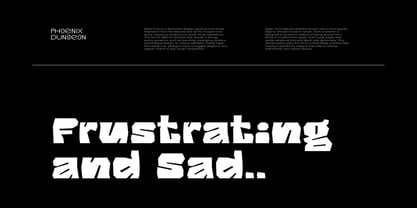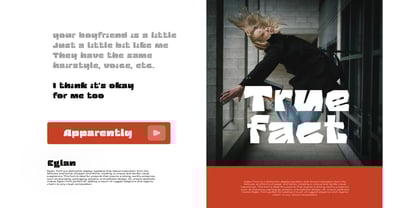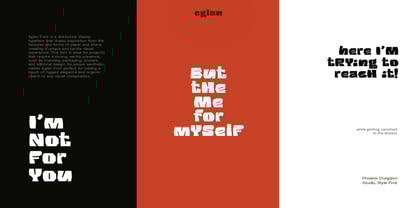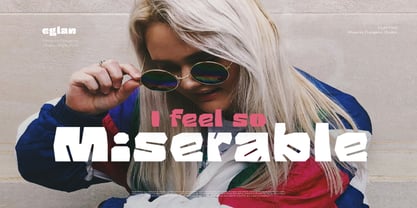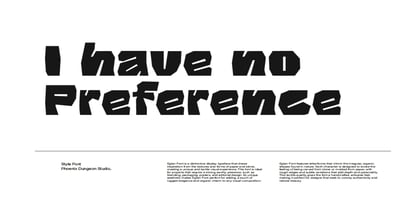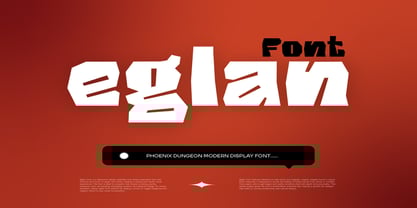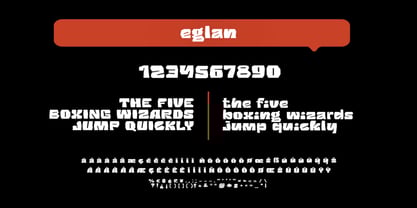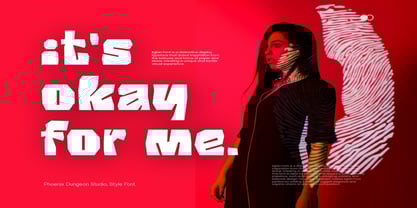
Eglan
by Phoenix Group
The Eglan Font Family was designed by Alif Naufal Muzakki and published by Phoenix Group. Eglan contains 1 styles. More about this family
Eglan Font is a distinctive display typeface that draws inspiration from the textures and forms of paper and stone, creating a unique and tactile visual experience. This font is ideal for projects that require a strong, earthy presence, such as branding, packaging, posters, and editorial design. Its unique aesthetic makes Eglan Font perfect for adding a touch of rugged elegance and organic charm to any visual composition.
Designers: Alif Naufal Muzakki
Foundry: Phoenix Group